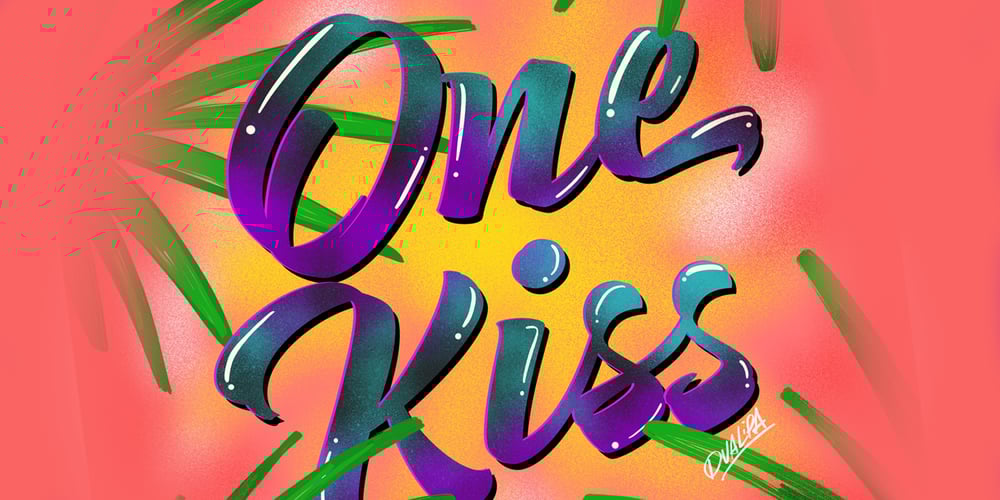
Respect
Respect font
Respect Font Family was designed by Giuseppe Salerno, Paco González and published by Resistenza. Respect contains 4 styles and family package options. Respect Font: A Tribute to Hand Lettering CultureStep into the world of Respect Font, an exuberant new script font family paying homage to the traditional craftsmanship of sign painting and brush pen calligraphy techniques. In crafting this font, our aim was clear: to create a modern interpretation of brush script that nods to the timeless artistry of hand lettering while infusing it with contemporary flair. The result? A dynamic fusion of old-school charm and urban edge.Drawing inspiration from the streets where graffiti artists leave their mark and sign painters bring storefronts to life, Respect Font is a testament to the rich tapestry of hand lettering culture. Its slanted angles and curved strokes exude a sense of movement, lending the font an active energy that commands attention. But it’s not just about catching the eye; it’s about making a statement.With its bold forms, unique terminations, and elegant swashes included as OpenType features, Respect Font invites you to explore a world where tradition meets innovation. Each letter is meticulously crafted to strike a balance between heritage and modernity, resulting in a font that feels simultaneously familiar and fresh.Whether you’re designing a logo, crafting a poster, or adding a touch of personality to your next project, Respect Font offers endless possibilities.More About Opentype Features: https://bit.ly/opentype-rsz